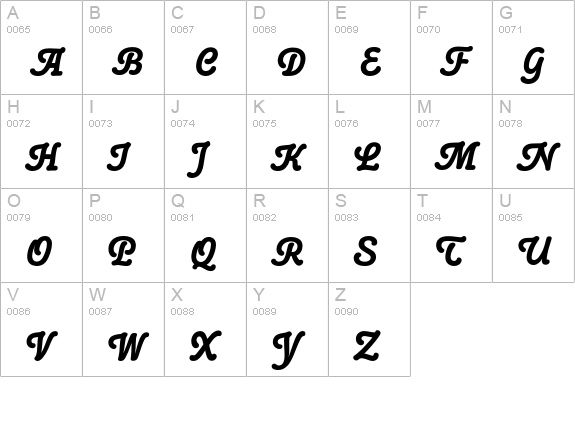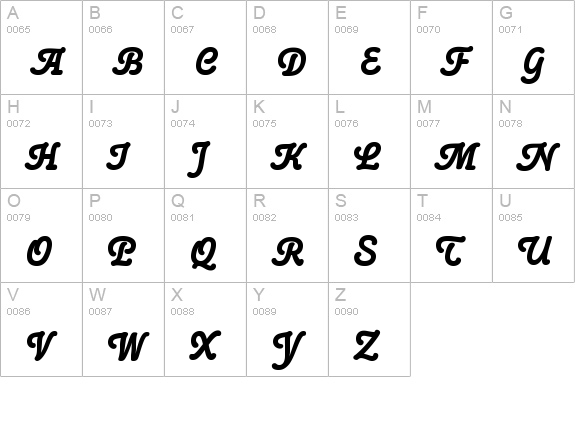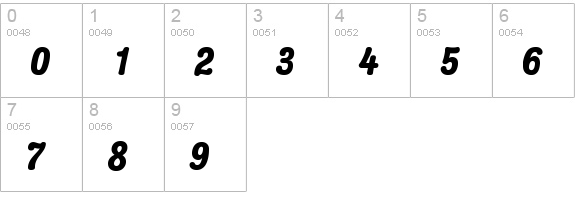
Poppl College Two BQ Bold is a strong, high-contrast variant in the Poppl typeface family \xE2\x80\x94 well suited to headlines, attention-grabbing titles, and strong calls-to-action.
Poppl College Two BQ Bold is a modern and bold typeface that exudes confidence and sophistication. Its strong, clean lines make it perfect for titles, headlines, and branding projects that require a bold statement. The font features a unique blend of classic and contemporary elements, making it versatile and suitable for a wide range of design applications. What sets Poppl College Two BQ Bold apart is not just its striking design, but also the fact that it is freely available to download at FontsMarket.com. This means that designers and creatives can access this high-quality font without any cost, making it a valuable addition to their font library. Whether you're working on a poster, logo, website, or any other design project that calls for a bold and impactful typeface, Poppl College Two BQ Bold is sure to make a lasting impression. Download it for free today and elevate your designs with this eye-catching font.